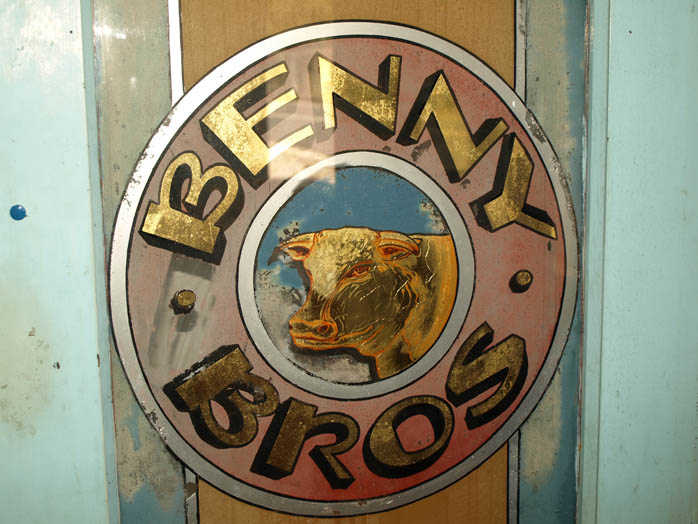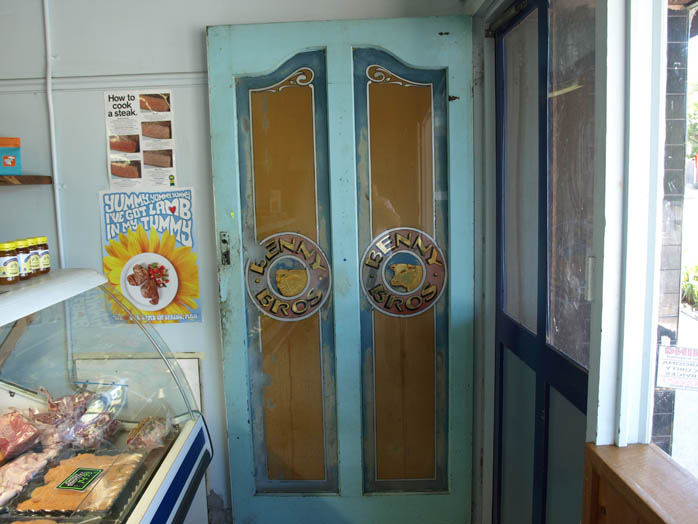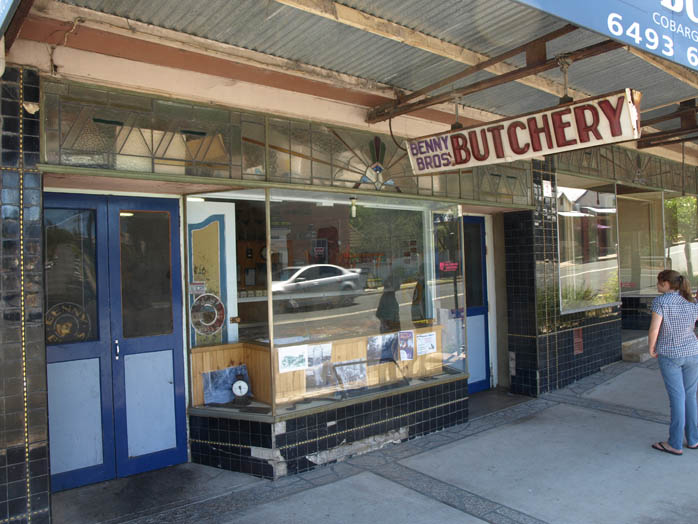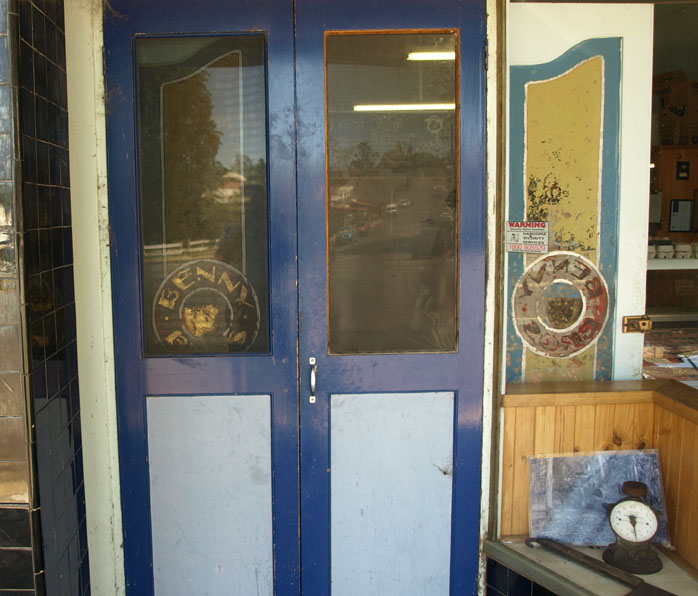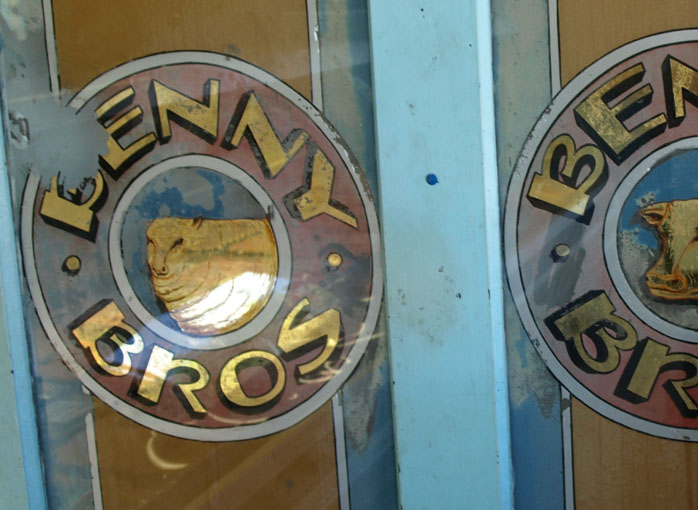
This old style butcher shop is still a working business. It's in a town called Cobargo in NSW.
It may not look much at first glance, but each of the four door panels had a lovely sign with an edible animal featured. Note some of details.....nicely stippled background (no one stipples backgrounds anymore), bit of colour glaze work combined with gold leaf for the cow. aluminium paste for the border line.
Other things I like are the pretty leadlight upper glass and what about that sign hanging under the verandah!
Nice post again Bruce, do you have a picture of the other panel as well please?
The other door wasn't open, so I didn't get good shots of it. The guys in the shop were busy and although they tolerated me pestering them about the signs and taking photos including from inside....I felt it would be pushing their patience too far to ask for more shots of the other door as well.
The other panel with the sheep on the open door wasn't as good as the cow and the condition wasn't as good either. Here's a cropped photo of it, but it's kind of a weird looking fat little lamb.
I like the picture of the cow. What kind of paint do you think was used for the orange modeling on the gold leaf?
it's not quite as orange in the other photos I've got.
It would just be gold size with a drop of colour added. You can see the matt areas are gold-size applied before it was water-gilded. Well, it's just more of that, but tinted. It's a glaze, so you can see the gold coming through.
Often Asphaltum (Black Japan) is mixed with gold size for this, but you can use any other color too. This looks like it could have some burnt sienna in it.
It would just be gold size with a drop of colour added. You can see the matt areas are gold-size applied before it was water-gilded. Well, it's just more of that, but tinted. It's a glaze, so you can see the gold coming through.
Often Asphaltum (Black Japan) is mixed with gold size for this, but you can use any other color too. This looks like it could have some burnt sienna in it.